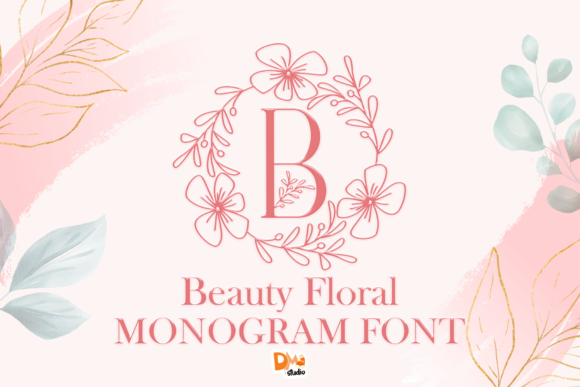
Journey into the realm of typographic elegance with Beauty Floral Monogram, the enchanting decorative font that will captivate your senses and transform your creative visions into stunning realities. Each meticulously crafted letter is adorned with delicate floral motifs, creating a visual symphony that dances across the page, evoking a sense of romance, sophistication, and timeless beauty.
Unleash the power of Beauty Floral Monogram and watch as your words blossom into exquisite works of art. Whether you're crafting heartfelt love letters, designing elegant wedding invitations, or embarking on captivating design projects, this font will elevate your creations to new heights of artistry. Its intricate details and refined aesthetic will leave a lasting impression, enchanting your audience and captivating their imaginations.
With Beauty Floral Monogram, the possibilities are endless. Let your creativity soar as you explore a world of typographic wonders. Create personalized cards and invitations that exude charm and elegance, design logos and branding that radiate warmth and sophistication, or craft digital content that captures the essence of romance and femininity. This font is the perfect companion for any project that demands a touch of whimsical beauty.
Immerse yourself in the allure of Beauty Floral Monogram and discover a new dimension of typographic expression. Its delicate flourishes and intricate details will transform your words into visual masterpieces, captivating the hearts of your readers and leaving them spellbound by the sheer beauty of your creations.
Don't settle for ordinary fonts that blend into the background. Embrace the extraordinary with Beauty Floral Monogram and witness the transformative power of typography. Let your words dance across the page, adorned with elegance and grace, and create a lasting impression that will leave your audience captivated and inspired.